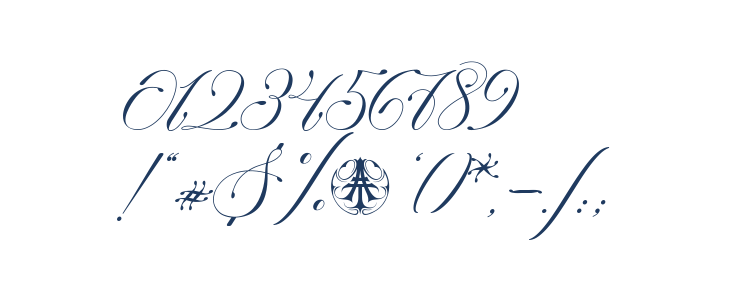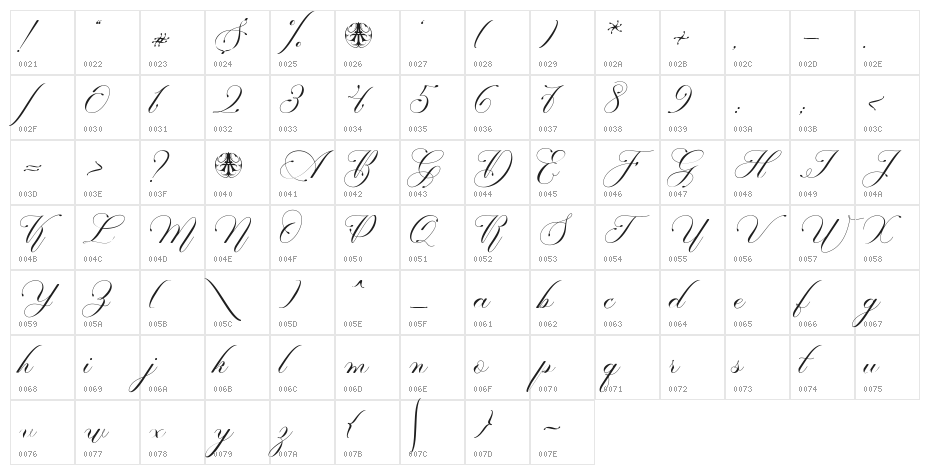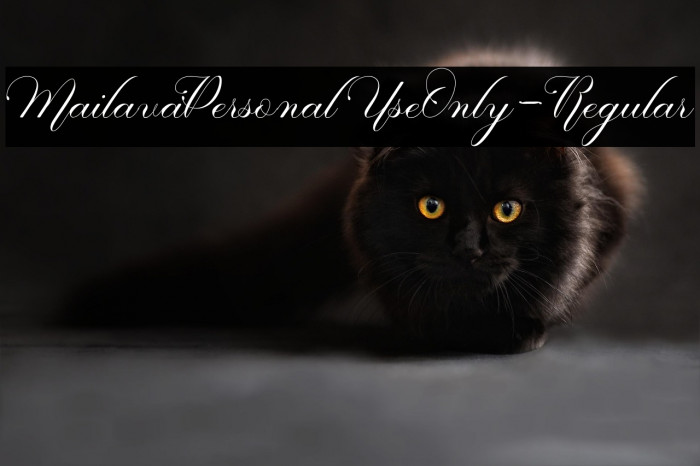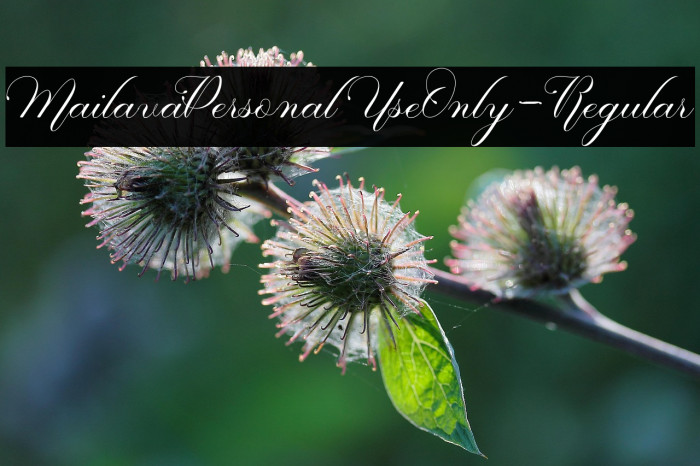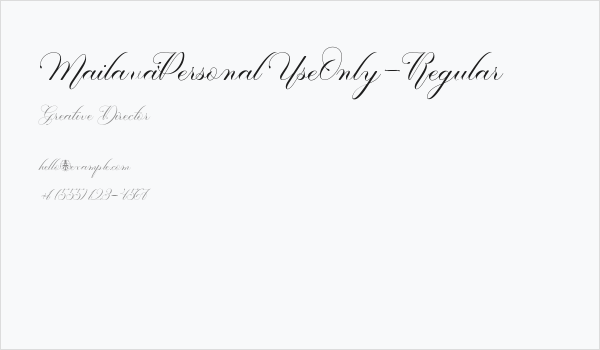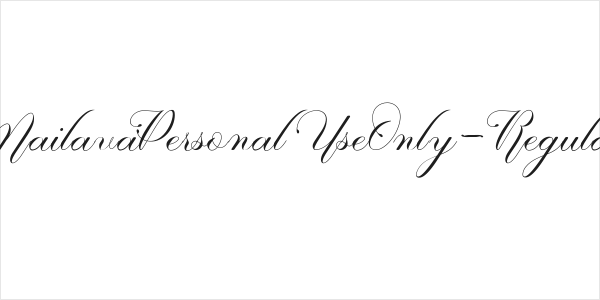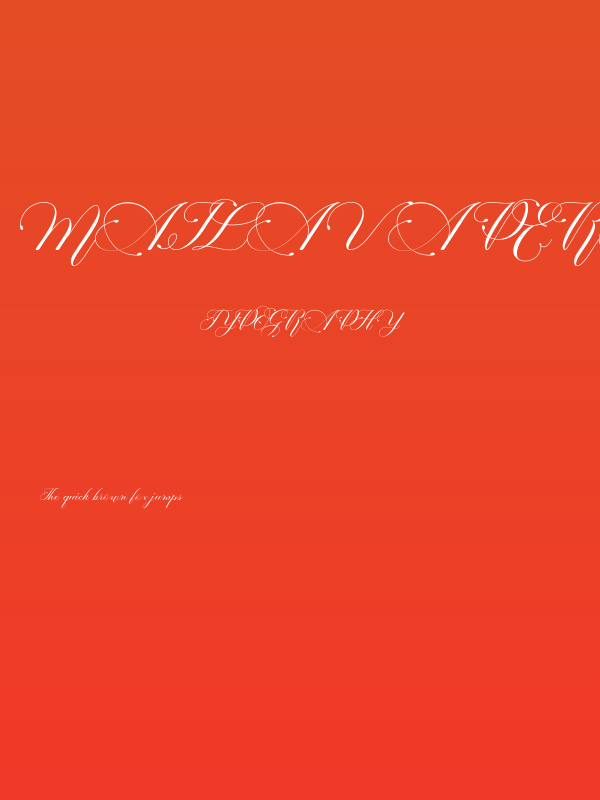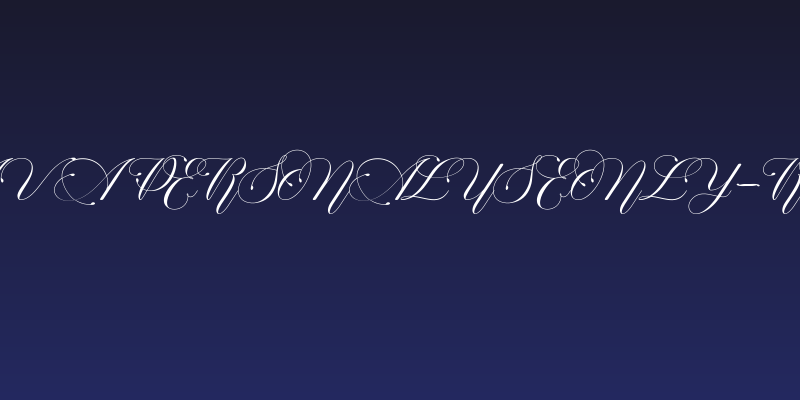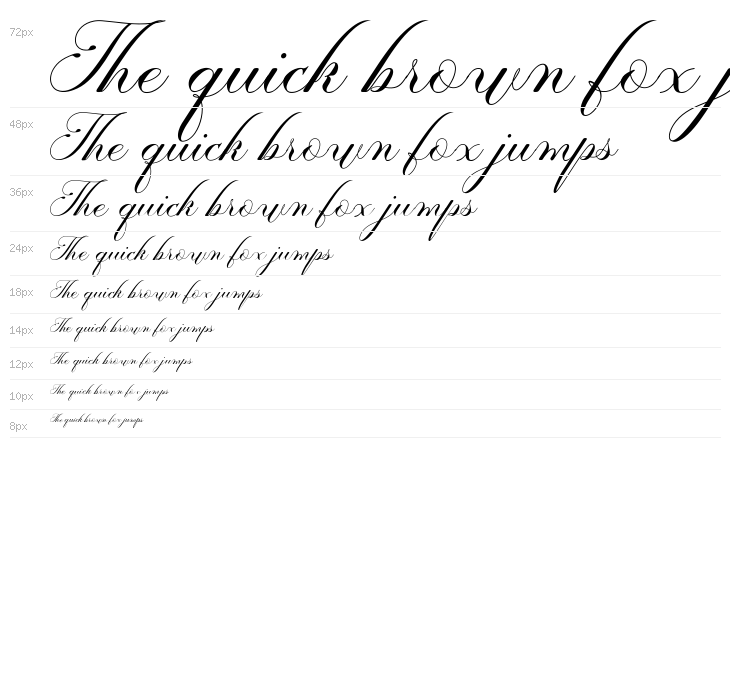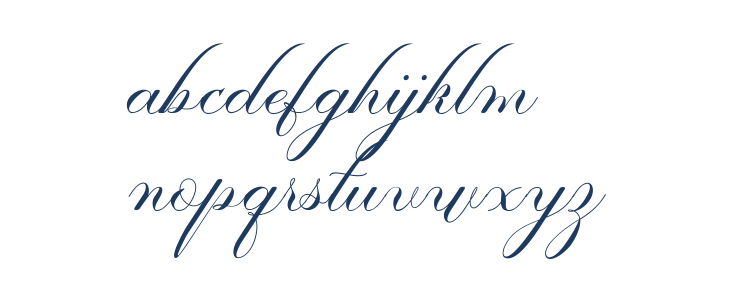
MailavaPersonalUseOnly-Regular Font
MailavaPersonalUseOnly-Regular Description
This elegant script font features intricate, flowing lines and elaborate swashes, giving it a sophisticated and artistic appearance. The uppercase letters are particularly ornate, with extended flourishes that add a sense of grandeur and formality. Lowercase letters maintain the same fluidity, with smooth, connected strokes that enhance readability while retaining an artistic flair. The numerals and special characters are equally decorative, making this font suitable for designs that require a touch of elegance and style. Its overall appearance is reminiscent of classic calligraphy, making it ideal for formal invitations, certificates, and high-end branding.
| Use Case | Headlines, Invitations, Logos |
| Proposed Projects | Ideal for wedding invitations, luxury branding, formal event programs, and artistic posters. |